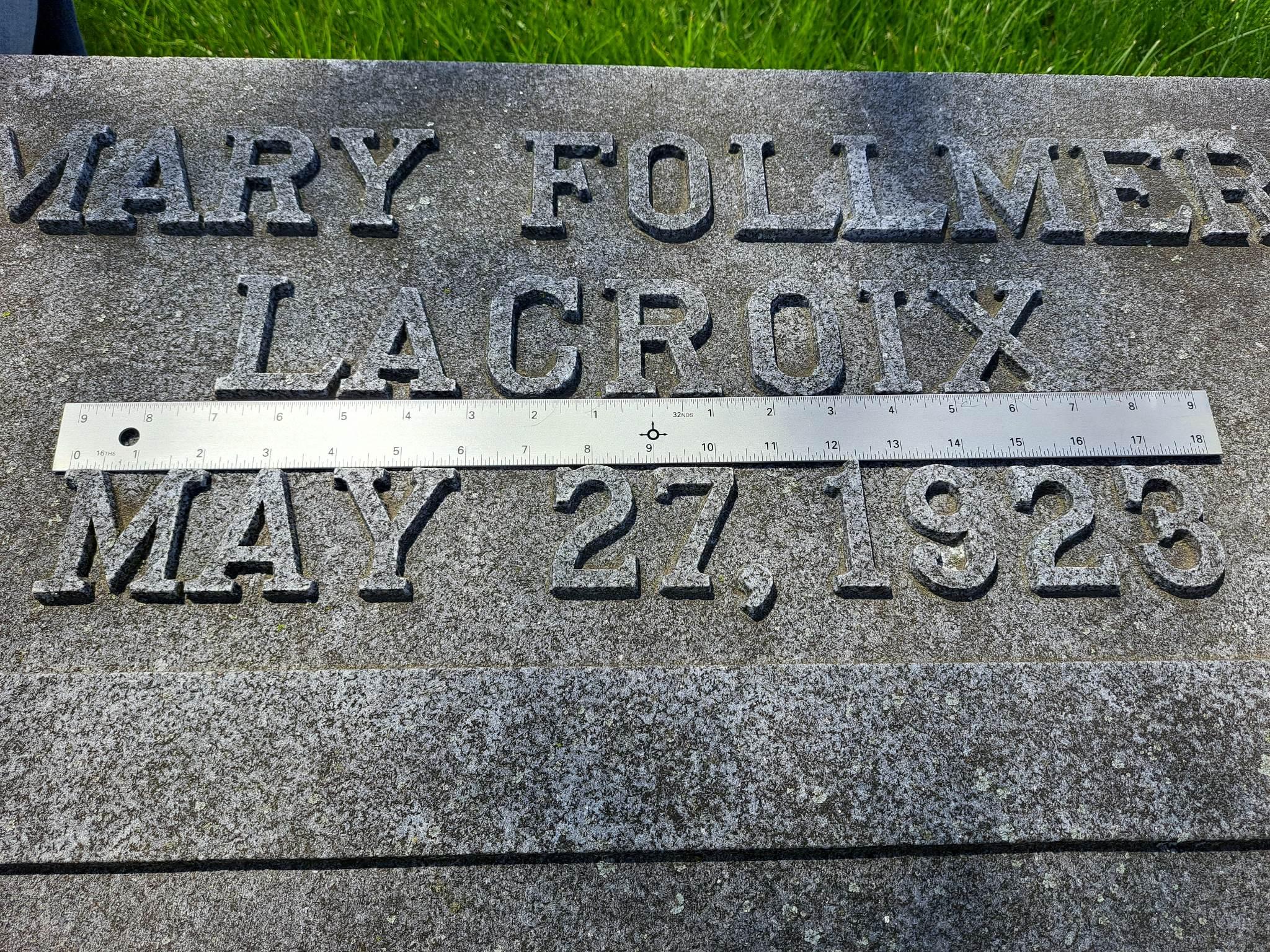
Hand Chisle Letters
Is there a computer font similar to these that i can either use or modify to make life easy.  I know they are hand cut but figured i would try here. It reminds me of just Romain modified but I wasnt sure.  Thanks for your time.
Hello, you might find a font or two that you can use as a starting point to match this, but ultimately it will require heavy manipulation in order to match all of the features of this lettering. It may be best to simply start from scratch and draw the letters up.